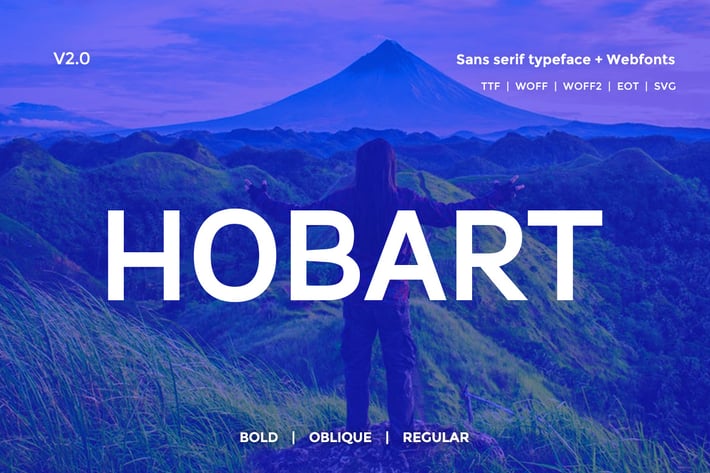
Hobart Minimal Typeface + Webfonts v2.0
Hobart Sans Typeface v2.0
Hobart Sans is a modern and Minimal Sans Serif typeface With Different weights, Hobart can keep the minimalism at its level best. The concept of Hobart Sans is based on Classic minimal typeface which was released in the 20th Century, but we have added Modern Styles and concentration to the Design.
+ REGULAR
+ BOLD
+ OBLIQUE